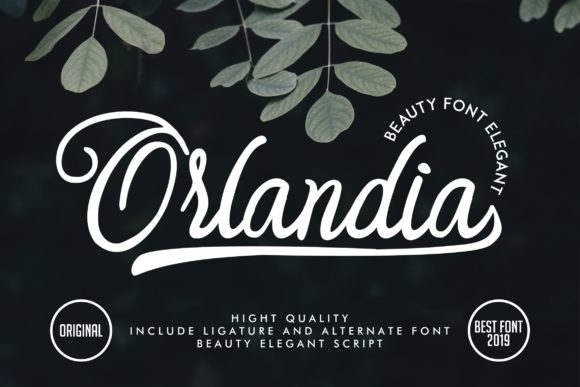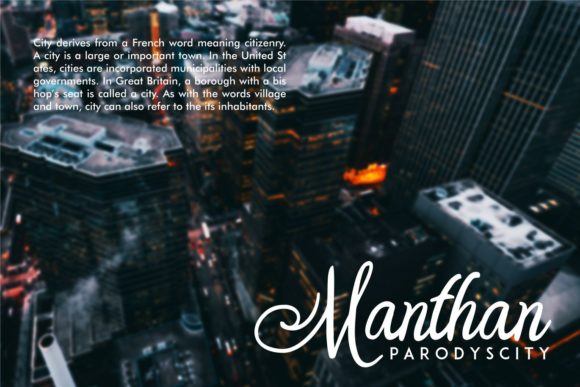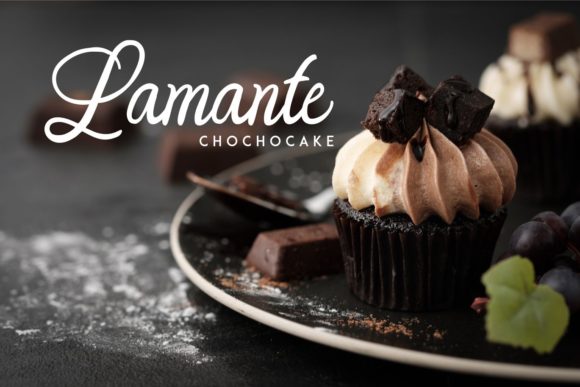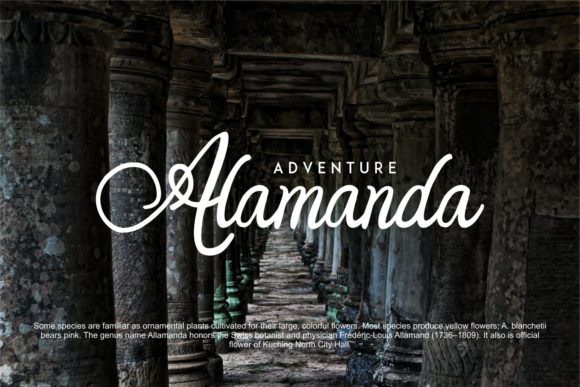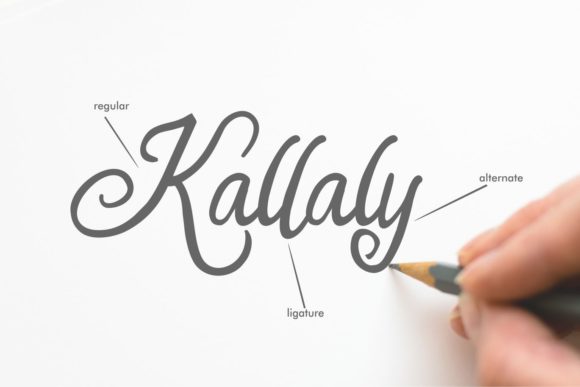
Orlandia Font
About Orlandia Font
Orlandia is a delicate and stunning handwritten font with a cool feel. It will add a bold feel to any creative project.